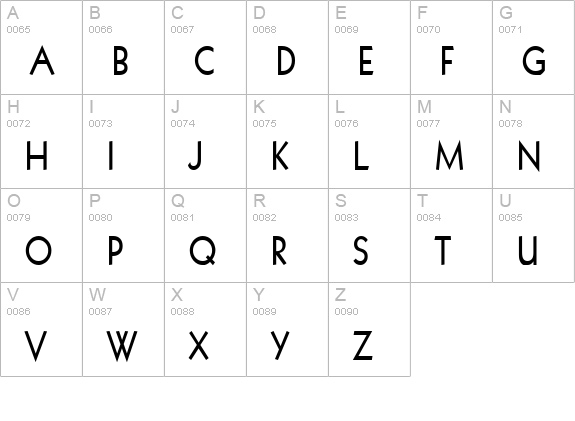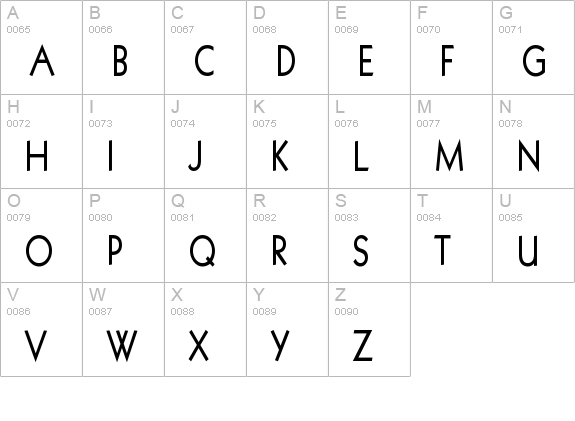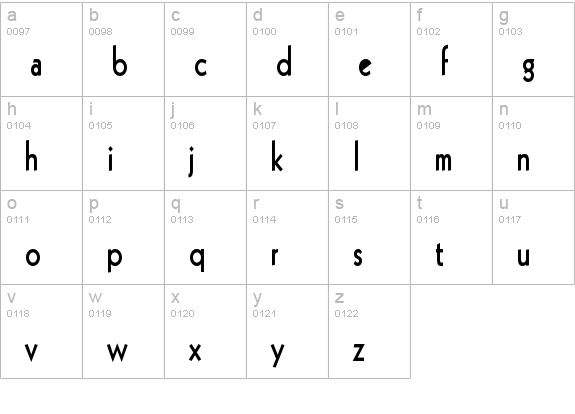
Geo 112 Condensed Bold is a strong, high-contrast, condensed-width variant in the Geo typeface family \xE2\x80\x94 well suited to headlines, attention-grabbing titles, and strong calls-to-action.
Geo 112 Condensed Bold font is a modern and sleek typeface that exudes confidence and sophistication. Its condensed design makes it perfect for headlines, titles, and branding materials that require a bold and impactful look. The sharp angles and clean lines of this font give it a contemporary edge that will make your designs stand out. What's even better is that Geo 112 Condensed Bold font is available for free download at FontsMarket.com. This means you can easily access this high-quality font and use it in your projects without any cost. Whether you're working on a poster, website, or logo design, Geo 112 Condensed Bold font will add a touch of professionalism and style to your work. Download it today and elevate your designs with this versatile and eye-catching font.